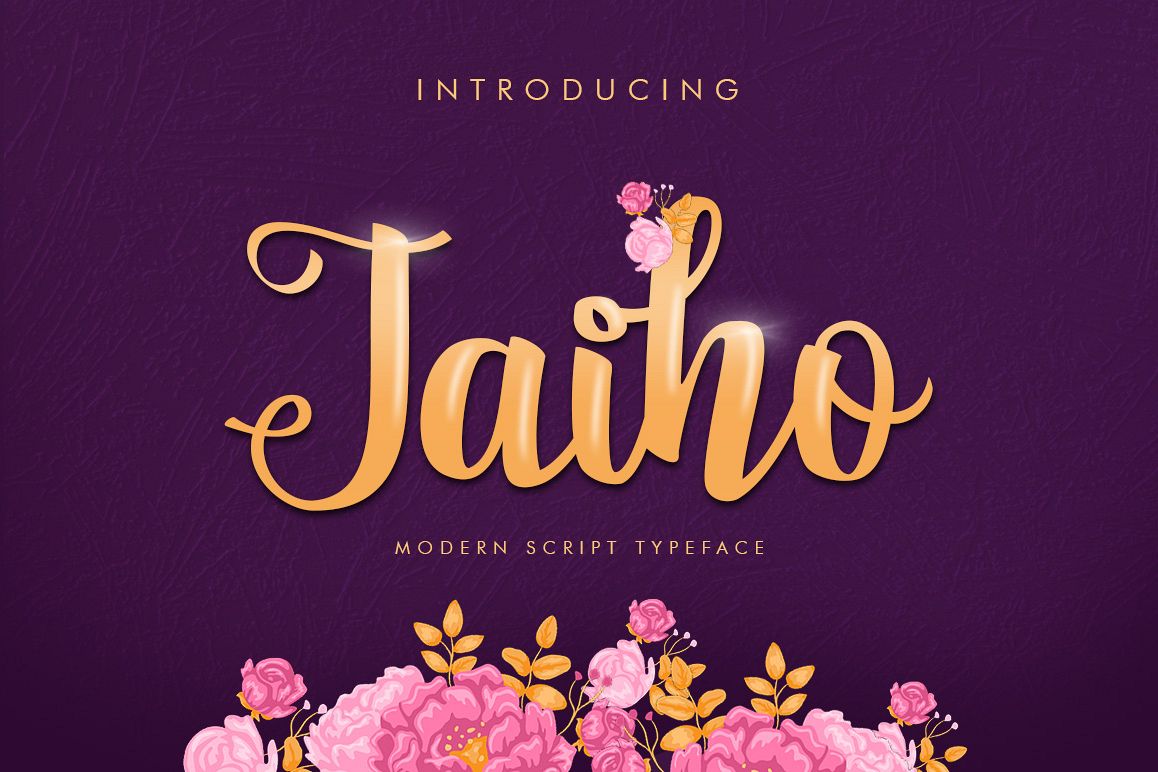
Jaiho Script (Duo Font)
Jaiho Script is a beautiful handmade script font, modern calligraphy & fresh typeface. Jaiho with 2 different style, Jaiho Script & Jaiho Sans. Jaiho Font suitable for logo, branding, greeting card, signature, poster and any design that you create.